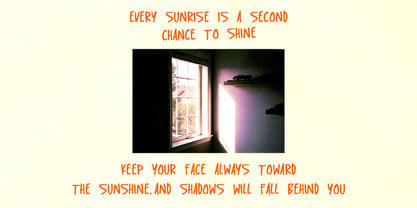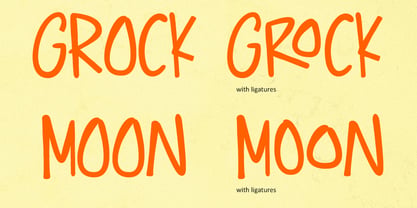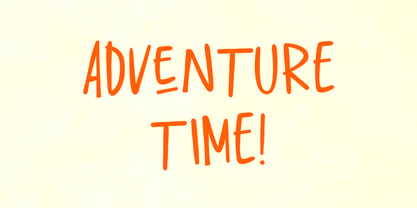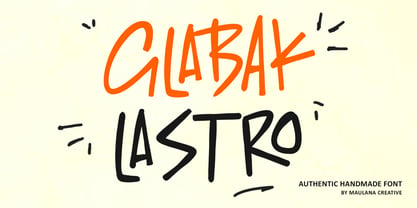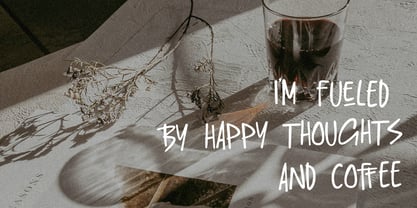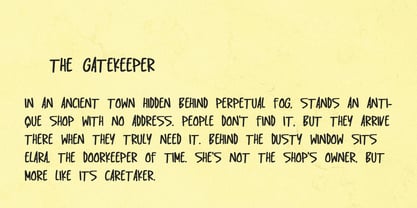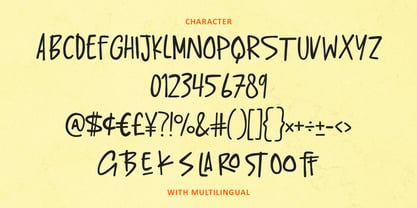
MC Glabak Lastro
by Maulana Creative
The MC Glabak Lastro Font Family was designed by Gilang Maulana and published by Maulana Creative. MC Glabak Lastro contains 1 styles.
Introducing Glabak Lastro, an Authentic Handmade Font that radiates playful and casual energy. This bold, all-caps typeface embodies the raw, imperfect charm of genuine hand-drawn lettering. With its slightly irregular baseline and distinct brush-like strokes, Glabak Lastro offers an organic, friendly, and energetic feel. It’s ideal for projects that seek a genuine, unpolished touch, moving away from sleek perfection to embrace authentic character. The font features a unique handmade texture, providing a real and grounded appearance that feels anything but digital or sterile. Its all-caps versatility makes it perfect for headlines, titles, and short statements. Enhanced with smart ligatures, Glabak Lastro prevents repetitive letterforms, enhancing its natural handwritten look. This font is perfect for quotes, social media graphics, website headers, children's projects, casual branding, comic lettering, and any design that aims to convey a spontaneous, happy, or indie vibe.
Designers: Gilang Maulana
Publisher: Maulana Creative
Foundry: Maulana Creative
Design Owner: Maulana Creative